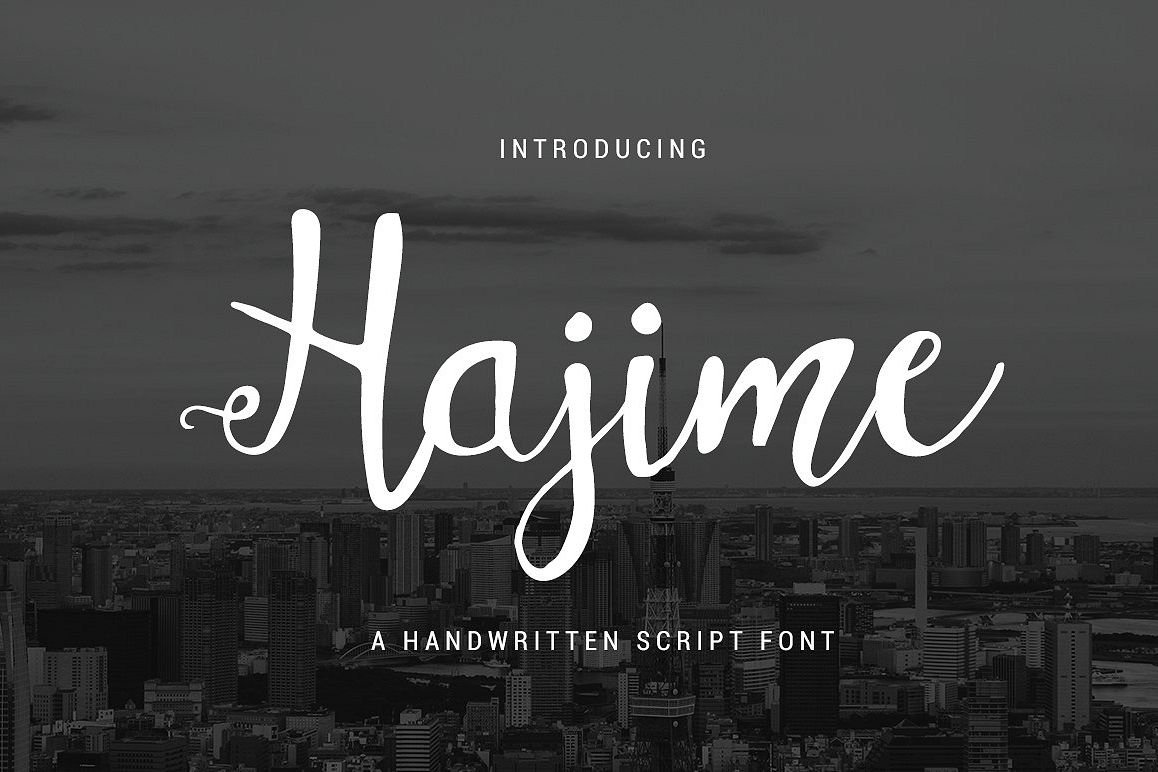
Hajime is a new handwritten script font with a cute, but elegant calligraphy style. This font is perfect for many projects such as branding, wedding invites, t-shirts, mugs, and a bunch of other fun things!Zip Folder Contains: